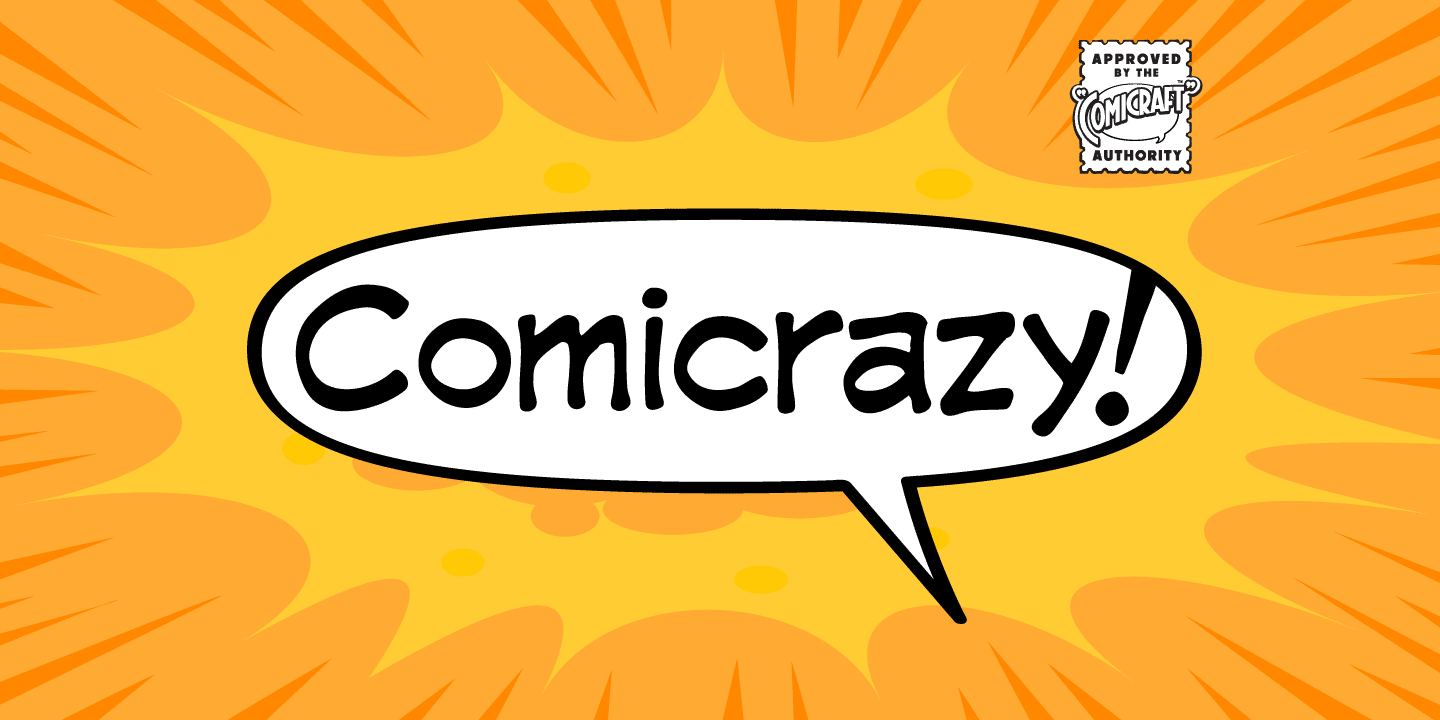
Comicrazy Font is perfect for comic book publications, graphic novel titles, children's book illustrations, animated movie posters, gaming interfaces, superhero merchandise, cartoon-themed branding, kids' entertainment materials, playful marketing campaigns, and creative educational content. This dynamic typeface excels in projects that demand energy, humor, and instant visual appeal.
What makes Comicrazy Font exciting is its authentic comic book aesthetic combined with exceptional readability and versatility. The font captures the spontaneous energy of hand-lettered comic dialogue while maintaining professional quality and consistency. This perfect balance between playful creativity and functional design makes it ideal for brands seeking to convey fun, adventure, and imaginative storytelling across various media platforms.
Comicrazy Font family includes Regular, Bold, Italic, Bold Italic, Condensed, Extended, Outline, Shadow, and 3D variants. Each style maintains the font's distinctive comic book character while offering different levels of visual impact, enabling designers to create dynamic compositions that capture the excitement of graphic storytelling.
The Comicrazy Font Free Download offers designers access to a premium comic-style typeface that brings authentic superhero energy to any project. This font's carefully crafted letterforms and expressive qualities make it particularly valuable for entertainment companies, gaming studios, and brands targeting audiences who appreciate pop culture and creative expression.
Creative professionals appreciate the font's ability to instantly communicate fun, energy, and accessibility. The letterforms' dynamic characteristics and playful nature create visual excitement that standard fonts cannot achieve, making it essential for projects requiring distinctive personality and emotional engagement.
When working with Comicrazy Font, designers can create compelling visual narratives that resonate with audiences across age groups. The font's expressive nature makes it especially effective for brands in entertainment, gaming, education, and children's products where emotional connection and memorable experiences are crucial.
For digital applications, Comicrazy Font maintains its distinctive comic book qualities across different platforms and screen sizes. Its optimized spacing and kerning ensure professional results in both digital comics and print publications.
Design studios consistently choose Comicrazy Font for projects requiring authentic comic book appeal and creative distinction, where conventional typography cannot capture the desired energy and pop culture resonance.